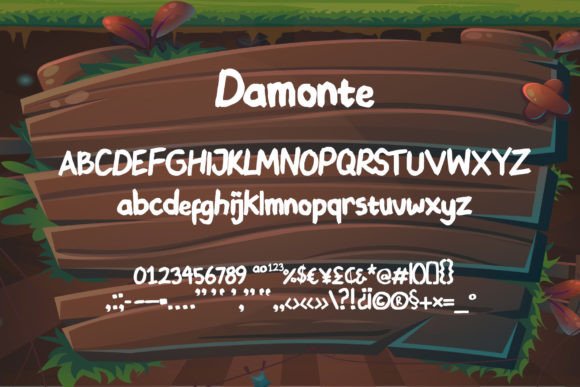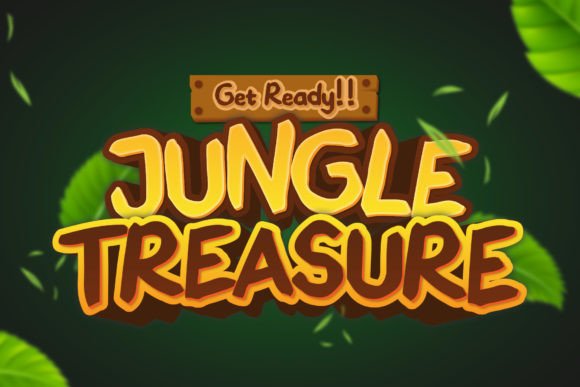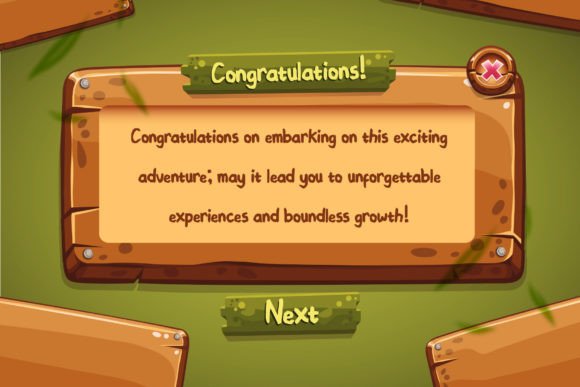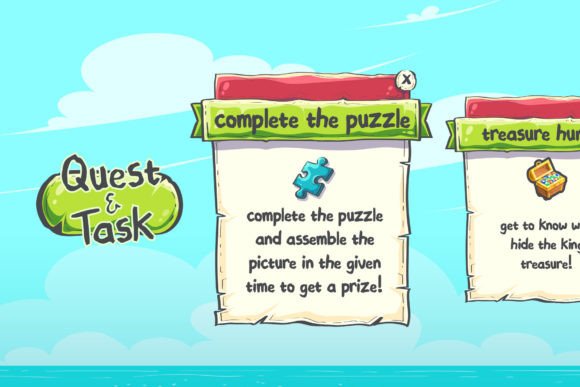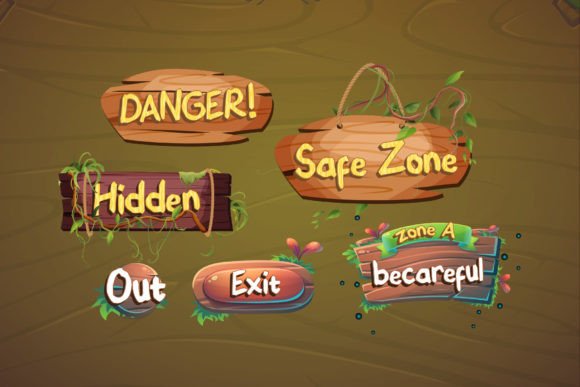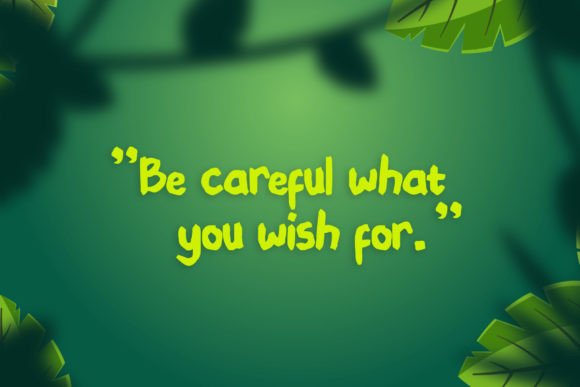
Unleash the Spirit of Adventure with Damonte Font
Are you looking for a font that captures the essence of exploration and wonder? Look no further than Damonte, an extraordinary adventure style font that embodies the thrill of discovery. Inspired by rugged landscapes and daring expeditions, Damonte is the perfect choice for designers and crafters seeking to evoke a sense of adventure in their projects.
The Inspiration Behind Damonte
Damonte’s distinct letterforms are rooted in the great outdoors, drawing inspiration from the majestic beauty of rugged landscapes and the bravery of daring expeditions. Each letter is carefully crafted to convey a sense of adventure, exploration, and discovery, making it an ideal font for projects that seek to inspire and captivate audiences.
Key Features of Damonte Font
- Unique Letterforms: Damonte’s letterforms are designed to stand out, with bold lines, rugged edges, and a sense of movement that evokes the thrill of exploration.
- Adventure-Inspired: From the grandeur of mountains to the vastness of the open road, Damonte’s design is infused with the spirit of adventure and discovery.
- Highly Versatile: Whether you’re working on a logo, poster, or website, Damonte’s flexibility makes it suitable for a wide range of design projects.
- Easily Readable: Despite its bold and rugged appearance, Damonte remains highly legible, making it perfect for use in both digital and print materials.
Damonte font is a treasure trove of creative possibilities for designers and crafters. Whether you’re working on:
- Logos and Branding: Use Damonte to create a bold and memorable brand identity that captures the essence of adventure and exploration.
- Posters and Flyers: Make a statement with Damonte’s striking letterforms, perfect for promoting outdoor events, travel campaigns, or adventure-themed activities.
- Web Design: Add a touch of rugged elegance to your website with Damonte, ideal for outdoor gear retailers, travel bloggers, or adventure-seekers.
- Packaging and Merchandise: Use Damonte to create eye-catching packaging and merchandise that stands out on store shelves and online marketplaces.
Tips for Using Damonte Font
To get the most out of Damonte, consider the following tips:
- Experiment with Colors: Pair Damonte with bold, vibrant colors to amplify its adventurous spirit.
- Play with Texture: Add depth and interest to your design by combining Damonte with textures that evoke the great outdoors, such as wood, stone, or leather.
- Mix and Match: Combine Damonte with other fonts to create a unique visual identity that blends adventure with sophistication.
Damonte font is a game-changer for designers and crafters seeking to infuse their projects with a sense of adventure and discovery. With its unique letterforms, rugged inspiration, and versatility, Damonte is the perfect choice for anyone looking to evoke the spirit of exploration and wonder. So why wait? Unleash your creativity and embark on a design adventure with Damonte font today!